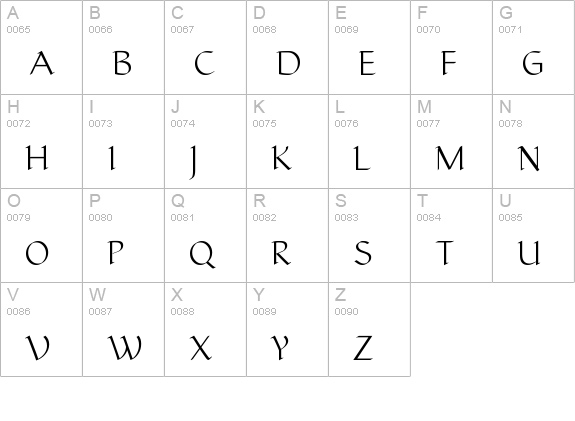
Hermainita Plain Font Details
Hermainita Plain font is a timeless and elegant typeface that exudes simplicity and sophistication. Its clean lines and classic design make it versatile for a wide range of design projects, from branding to editorial layouts. The font's sleek and modern appearance will instantly elevate any text it is applied to, adding a touch of style and professionalism. What sets Hermainita Plain font apart is not only its aesthetic appeal but also the fact that it is available for free download at FontsMarket.com. This means that designers and creatives can easily access this high-quality font without any cost, making it a valuable addition to their font library. Whether you are working on a personal project or a client's design, Hermainita Plain font is a fantastic choice that combines beauty and accessibility. Download it today and discover the endless creative possibilities it offers.